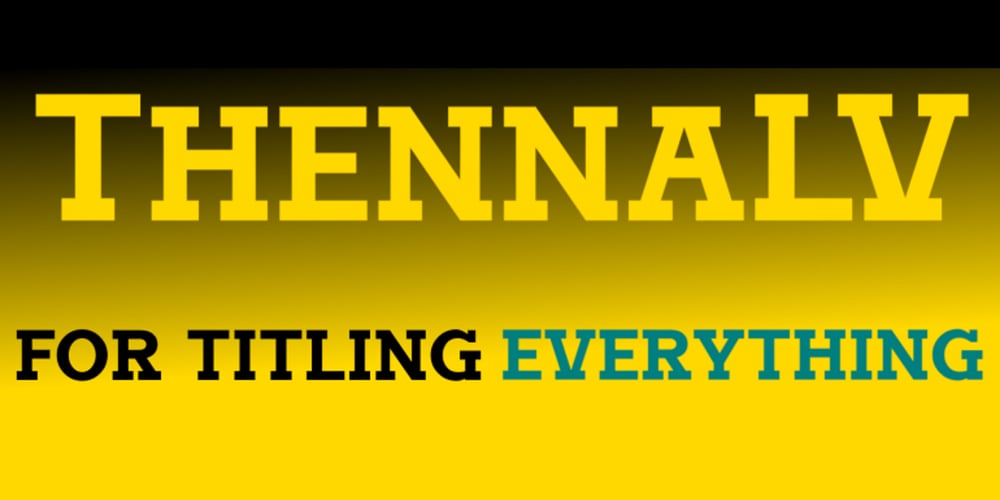
Thenna LV Font Family was designed by Adrian Williams, Dror Ben Dov, Mark Andresen, Frank Pendrell and published by Miroslav Cunic. Thenna LV contains 2 styles and family package options. ThennaLV Bold is a slightly contrasted and a bit extended (not just basic) font family with two styles suitable for typing headlines in newspapers or magazines, giving the name of a book, composition and more. The font family consists Latin and cyrillic characters.